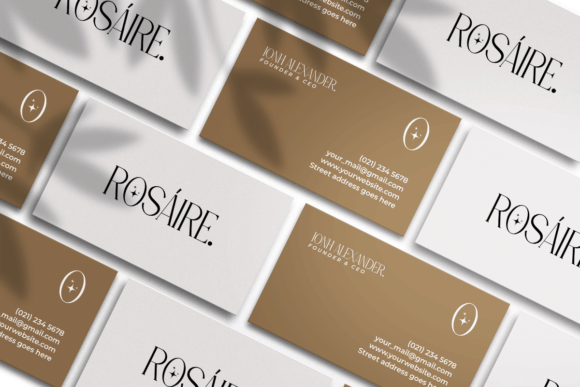
Queen Font
Queen is a stunning and versatile typeface that effortlessly blends contemporary design with classic elegance. Perfect for high-end branding, sophisticated invitations, chic logos, and polished editorial layouts, this serif font exudes luxury and refinement. With its sleek lines and stylish serifs, Queen adds a touch of sophistication to any project. Ideal for both print and digital media, this font enhances your designs with its modern yet timeless appeal. Elevate your creative work with the distinguished and elegant Queen font.